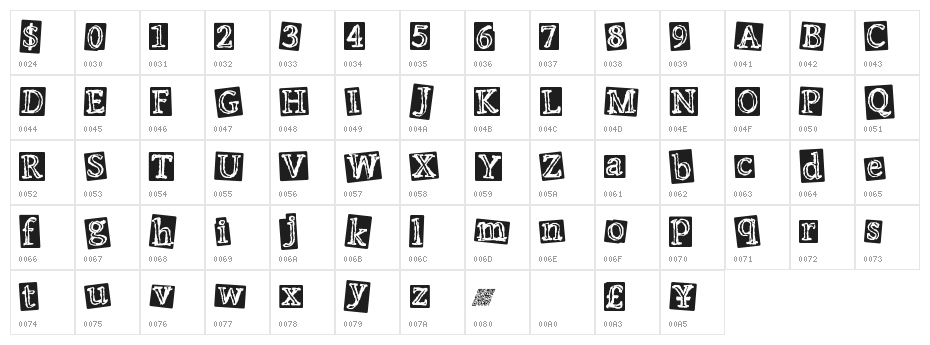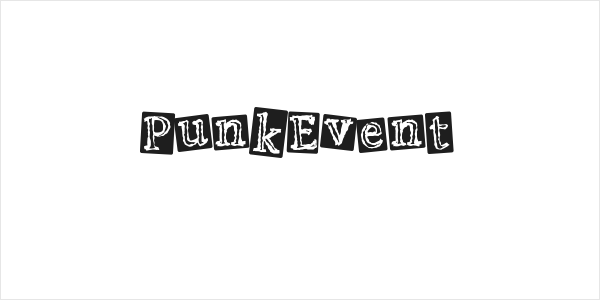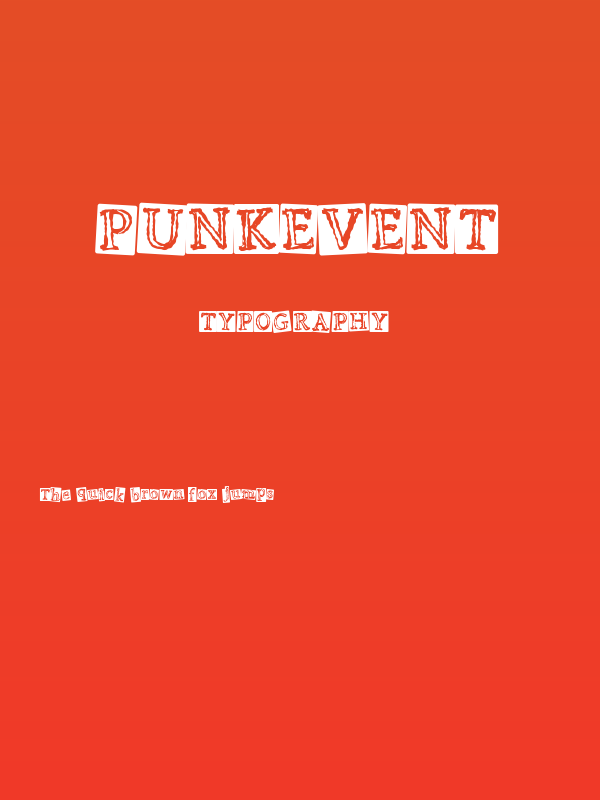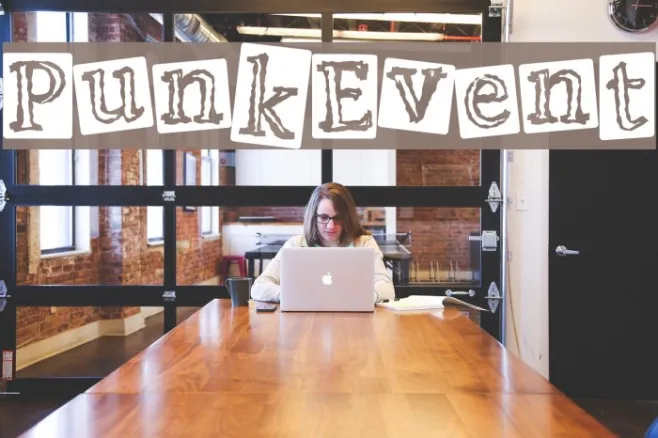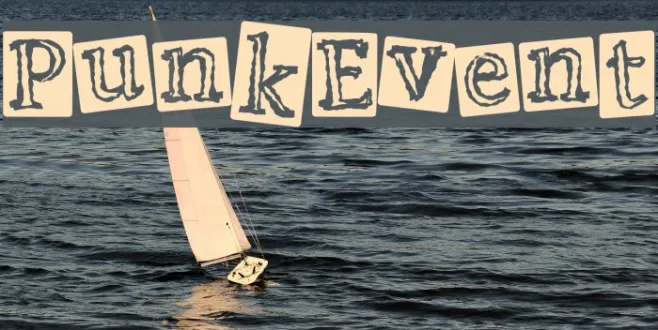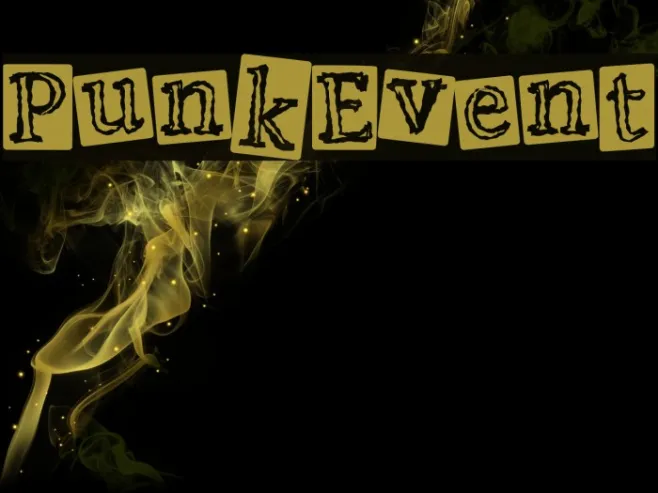
PunkEvent Font
PunkEvent Description
This font embodies a rebellious and edgy aesthetic, reminiscent of punk rock and DIY culture. Each character is uniquely distressed, with rough edges and an uneven baseline, giving it a raw, handmade feel. The letters are set against a bold, black background, enhancing their striking appearance. This style is perfect for projects that aim to capture an alternative or countercultural vibe. The font's irregularity and boldness make it stand out, ideal for grabbing attention and making a statement.
| Overall Style | Punk, Edgy, Rebellious |
| Use Case | Headlines, Posters, Logos |
| Proposed Projects | Ideal for music event posters, album covers, zines, and rebellious fashion branding. |